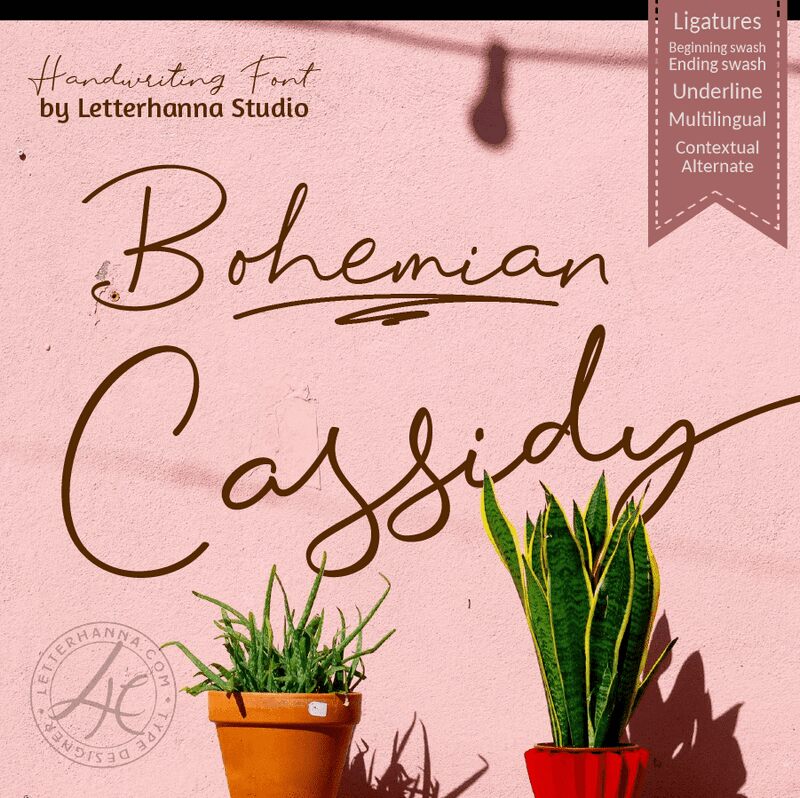
Bohemian Cassidy font
Bohemian Cassidy is a charming handwriting script font ideal for signatures, logos, weddings, posters, brochures, or any display use. It adds a charismatic touch to your projects, including branding, greeting cards, banners, and name cards.
Mix your designs with this font, and consider pairing it with serif fonts to create interesting layouts for your projects.
Bohemian Cassidy features a complete set of lowercase and uppercase letters, a wide range of punctuation marks, numerals, and multilingual support. It aims to resemble natural handwritten script, offering two full sets of lowercase tail alternates, natural-looking ligatures, and 24 underline swooshes.
Bohemian Cassidy is PUA encoded, making it easy to access all glyphs and swashes!
- Uppercase and lowercase letters
- Numerals and punctuation
- Multilingual support
- Ligatures
- Beginning and ending swashes
- Underline swashes
- Contextual alternates